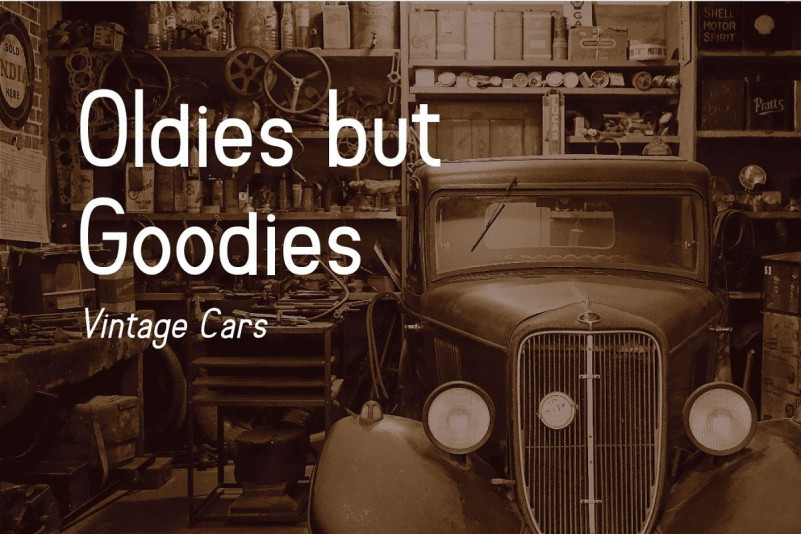
Gazzetta Font
Gazzetta Sans Serif Font is a condensed font family with a display character and neo-grotesque nature, friendly and energetic. It exhibits softened features and curves, very sharp joins between some strokes, and a slight reverse contrast in its thicker weight.
Characteristics that give it a lot of personality and display capacity.The family is made up of 8 weight variables and their respective slanted versions, with substitutions in some glyphs that seek to maintain an italic flavor.
It has a repertoire of OpenType features, including Stylistic Alternates, Case Sensitive Forms and Old Style Figures. In addition to decorative resources such as circled numbers, arrows and quotation marks.
Its aesthetic and technical attributes can be used in the design of book covers, newspapers, magazines, posters, large format materials, websites and apps